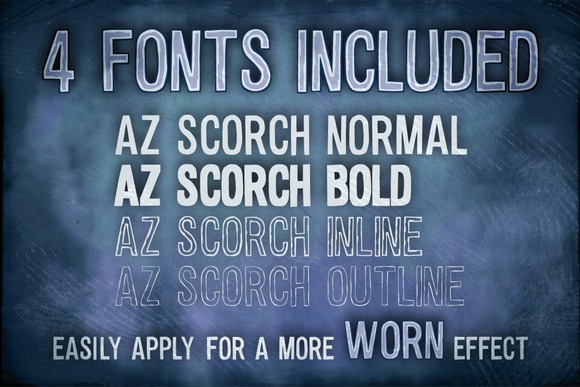
The Birth of a New Design Era: Introducing AZ Scorch Font
There’s something magical about the moment when a design idea clicks into place. The room falls silent, your mind starts racing, and you know you’re onto something special. For designers, these eureka moments are what drive us to push the boundaries of creativity and innovation. And, for me, one such moment came when I stumbled upon the AZ Scorch Font – a sleek, modern sans serif font that’s about to revolutionize the way we think about typography.
Designed with readability in mind, AZ Scorch Font is perfect for designers who want to create visually stunning yet easy-to-read content. Whether you’re working on a branding project, designing a website, or crafting a marketing campaign, this versatile font is sure to be a valuable addition to your toolkit. Its clean lines and modern aesthetic make it a game-changer for designers who want to stay ahead of the curve.
- Unique Characteristics: AZ Scorch Font features a distressed, retro-futuristic design with a bold, dynamic feel, making it perfect for titles, headings, and emphasis in designs.
- Font Family: The AZ Scorch Font family consists of multiple styles, including Regular, Bold, Italic, and Bold Italic, offering users flexibility and versatility in their designs.
- Legibility: Despite its bold and distressed appearance, AZ Scorch Font remains highly legible, even at small font sizes, ensuring that your message is conveyed clearly and effectively.
AZ Scorch Font Review
As a designer, I recently had the chance to work with the AZ Scorch Font. Overall, my experience was mixed. Here’s a breakdown of what I liked and what I didn’t.
- The AZ Scorch Font has a bold, striking design that grabs attention. It’s perfect for titles, headings, and other prominent text elements.
- The font’s rough texture gives it a unique, edgy feel that can work well for modern and futuristic designs.
- The font is highly customizable, allowing designers to adjust the texture, size, and color to fit their project’s needs.
- The font can be overwhelming if used extensively throughout a design. Its bold design may start to feel tiresome or even chaotic if overused.
- The texture can sometimes make it difficult to read the text, especially for smaller font sizes or in low-light conditions.
- The font may not be suitable for designs that require a more elegant or sophisticated look.
In conclusion, the AZ Scorch Font is a unique and attention-grabbing font that can be a great addition to a designer’s toolkit. However, it’s essential to use it judiciously and consider the project’s specific needs and aesthetic.
Tips for Getting the Most Out of the AZ Scorch Font
Use the AZ Scorch Font to add a distressed, vintage feel to your designs.
Combine the font with bold colors and textures to create a unique and eye-catching look.
Use the font for titles, headings, and other emphasis to draw attention to important information.
The AZ Scorch Font is perfect for:
Designing vintage-inspired posters and flyers.
Creating bold and eye-catching headings and titles.
Adding a distressed, weathered feel to your designs.